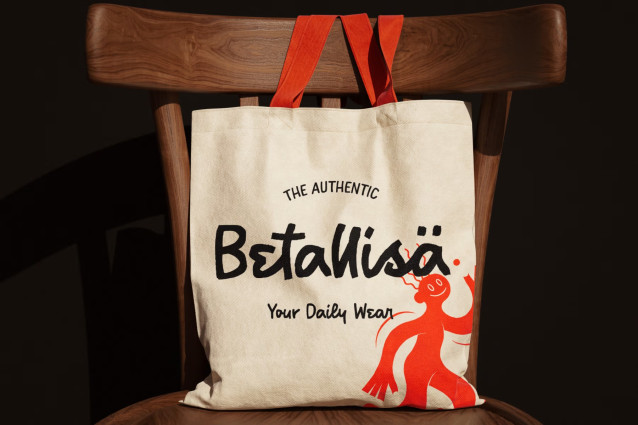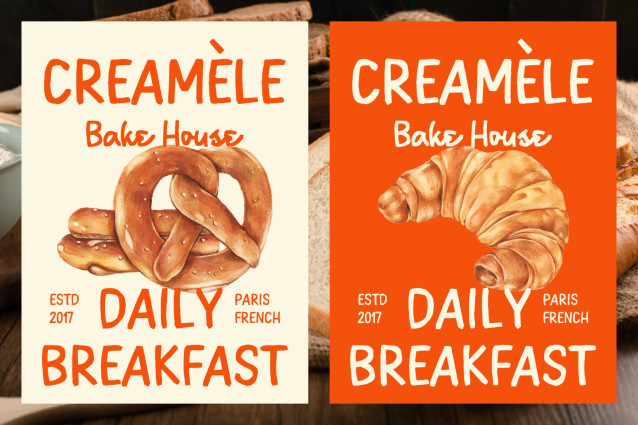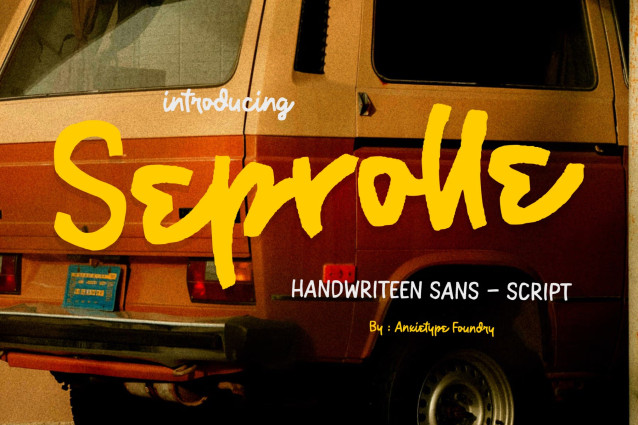
Seprolle is a distinctive handwritten sans-script font by Anxietype Foundry, blending the casual charm of hand-drawn lettering with the bold character of vintage and retro brush typography.
Inspired by classic sign painting, retro branding, and expressive brush lettering, Seprolle brings an authentic, slightly imperfect personality to every design. Its bold strokes and dynamic handwritten forms create a confident yet approachable look that works beautifully across both modern and nostalgic projects. Perfect for logos, branding, packaging, posters, apparel, labels, badges, social media designs, café branding, product packaging, quotes, headlines, and vintage-inspired artwork.
Seprolle is made for designers who want their typography to feel expressive, handcrafted, bold, and full of character.